8 Best Textura Fonts for Medieval Design Projects
Textura fonts bring the dense, woven texture of medieval manuscripts straight into modern design tools. Their vertical emphasis, broken strokes, and tight rhythm instantly evoke illuminated pages, royal decrees, and gothic cathedrals. Whether you're designing a fantasy novel cover, a historical wedding invitation, or a dark-themed brand identity, the right textura blackletter delivers instant authority without feeling cartoonish.
My Criteria for These Recommendations
I focused on fonts that feel rooted in medieval calligraphy yet work in real workflows: branding, packaging, editorial design, certificates, and craft projects. Priority went to those with strong specimen previews, clear compatibility notes, and proven commercial use allowances. I also considered how well they hold up at different sizes—from large display headlines down to smaller body text.
1. Highcrest
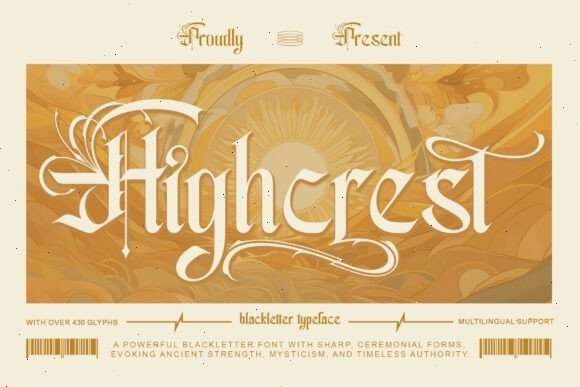
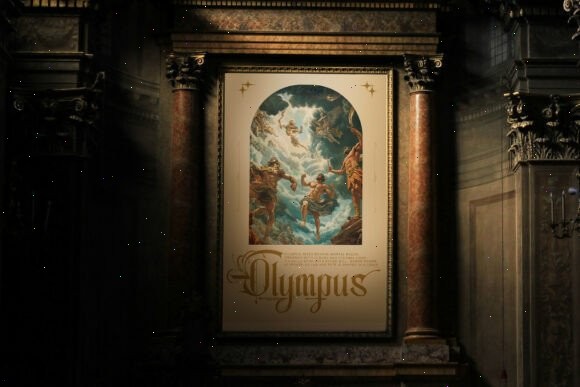
Highcrest feels closest to classical ceremonial manuscript lettering. It has elegant flourishes, long ornamental strokes, and refined uppercase characters that work extremely well for luxury medieval branding.
What stands out most is the balance between ornamentation and readability. Many decorative blackletter fonts become messy at smaller sizes, but Highcrest still works surprisingly well for headers and fantasy product packaging.
Luxury medieval branding, fantasy book covers, heraldic logos, certificates
The italic variant gives it extra flexibility for editorial layouts and decorative headings.
2. Black Kiyrand
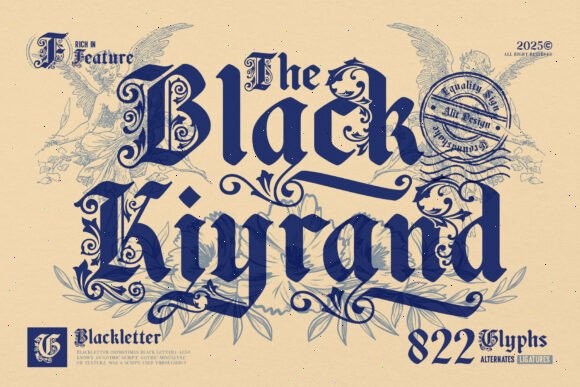
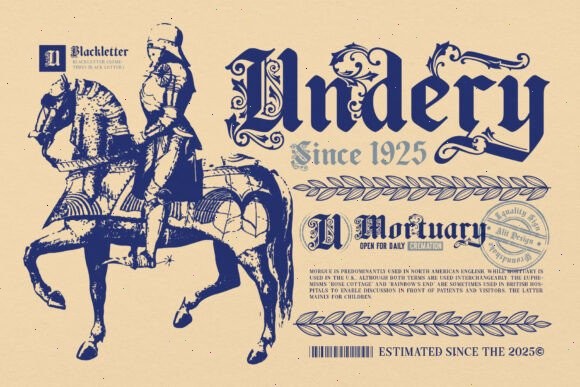
Black Kiyrand leans heavily into ornamental Gothic tradition with intricate flourishes and highly decorative uppercase forms. It has a very “royal manuscript” appearance that immediately feels premium.
This is one of the strongest choices for fantasy RPG branding because it captures that old-world atmosphere without looking outdated.
In practice, it works best in larger display sizes. The detailing can become dense in smaller subtitles or UI elements.
Fantasy game logos, medieval posters, premium packaging, gothic branding
Includes a huge glyph set with alternates and ligatures, making custom wordmarks much easier.
3. Ashod
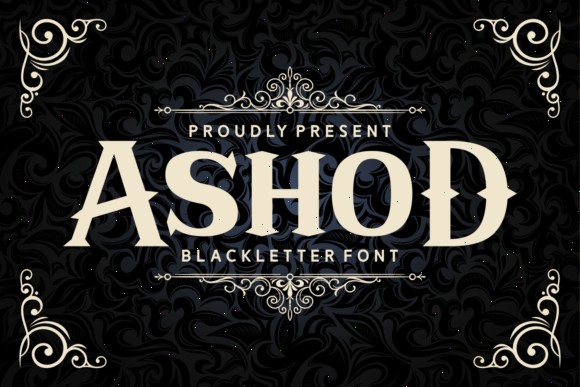
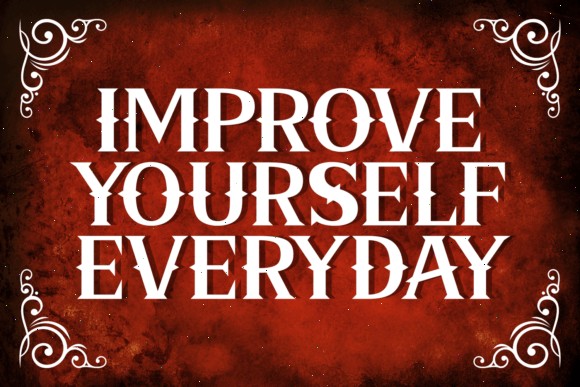
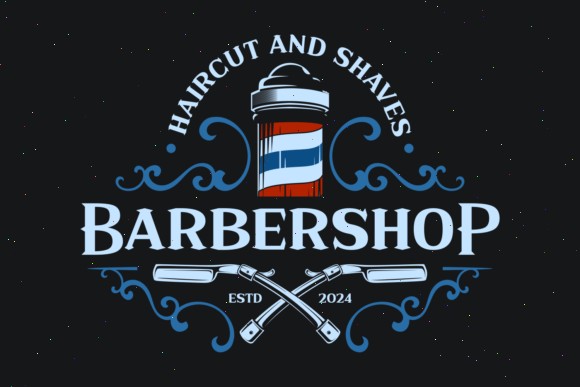
Ashod takes a slightly cleaner approach compared to heavily ornamented blackletter fonts. The structure still feels medieval, but the shapes are more restrained and versatile.
This makes it useful for designers who want historical aesthetics without overwhelming the composition.
It works especially well for:
- historical branding
- packaging
- medieval-inspired web graphics
- decorative print layouts
Editorial design, branding, historical themes
Cleaner forms make it easier to combine with modern serif or sans-serif fonts.
4. Bright Horse
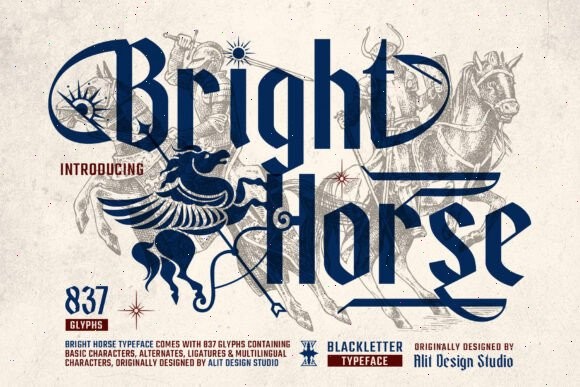
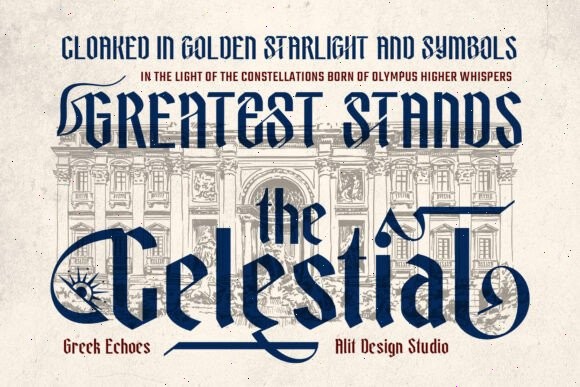
Bright Horse is one of the more modern interpretations of Textura typography. It blends traditional blackletter structure with stronger geometric weight and slightly contemporary styling.
This is the type of font that works extremely well for gaming projects because it feels medieval without becoming too historical.
In logo design, the heavy vertical strokes create strong visual impact even on thumbnails or social banners.
Gaming logos, esports branding, fantasy streaming graphics
Strong readability compared to most aggressive blackletter fonts.
5. Skullines
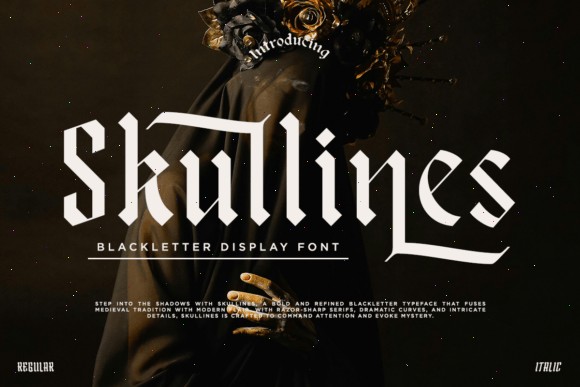
Skullines pushes further into dark fantasy territory with razor-sharp edges and dramatic blackletter forms.
It immediately feels suitable for:
- dark RPG titles
- heavy metal branding
- occult posters
- gothic apparel
The italic version is especially useful for cinematic poster layouts.
Dark fantasy branding, gothic posters, metal-inspired graphics
Sharp angular construction gives it a modern edge while preserving medieval DNA.
6. Black Webs
Black Webs is one of the boldest fonts in this list. The characters are thick, dramatic, and highly stylized, making it excellent for statement typography.